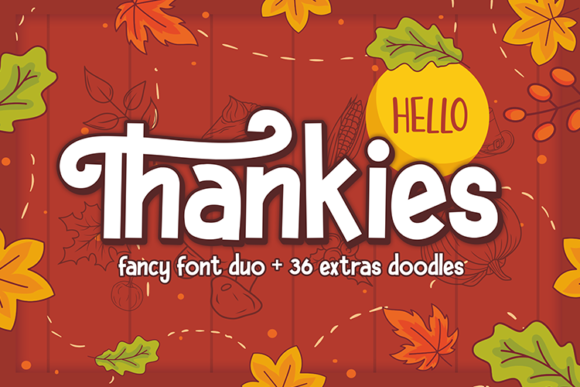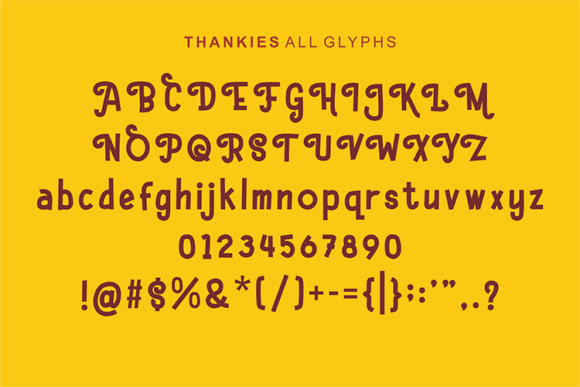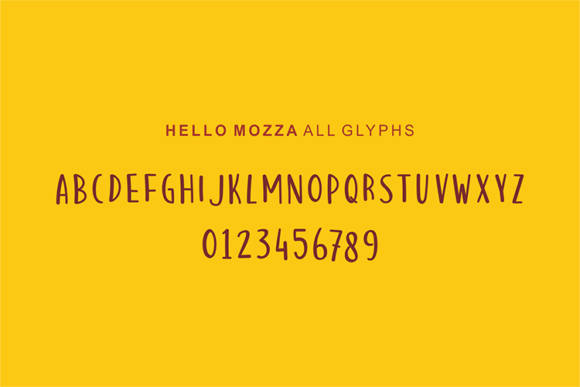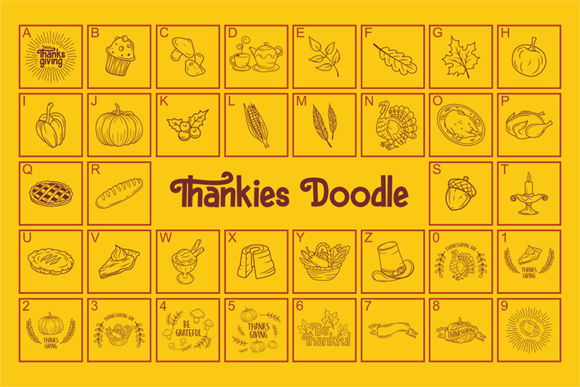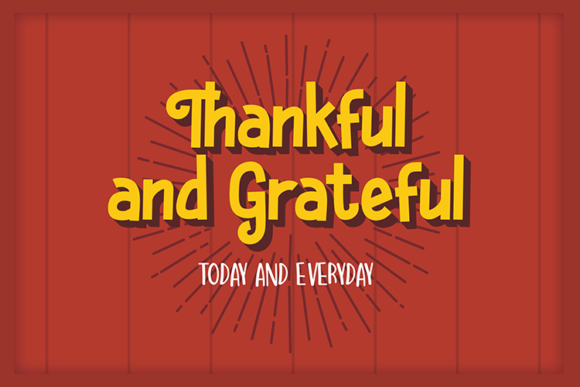
The Hello Thankies is a handwritten font duo inspired by the warmth of thanksgiving moments. It included 2 styles and fun autumn doodles to make your designs even more unique.